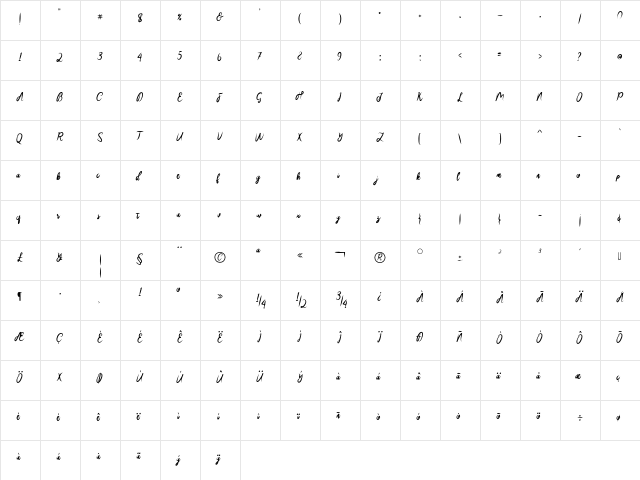
Sakira Script Regular
| Foundry | syahputra_Bexxtype |
| Designer | syahputra/bexxtype |
Design Context for Sakira Script Typeface
Sakira Script flows with the natural rhythm of handwritten lettering, making it ideal for designs that call for warmth and personal expression.
Font Pairing: Combine Sakira Script with a simple geometric sans for maximum contrast — the tension between flowing curves and clean structure is a classic typographic pairing.
Pro Tip: Use Sakira Script for short runs of text — names, titles, or taglines. Extended body copy in script faces tires the eye quickly.